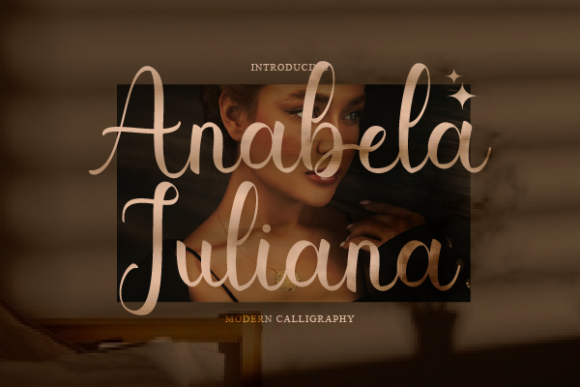
Introducing Anabela Juliana, the captivating and charming handwritten font that will ignite your imagination. Step into a world of endless creative possibilities with this exquisite script font, meticulously crafted to infuse your designs with elegance and allure.
Anabela Juliana is not just another font; it's an artistic masterpiece that breathes life into your creations. Its fluid strokes mimic the graceful flow of handwriting, adding a touch of authenticity and warmth to every project. The gentle curves and whimsical charm of this font evoke a sense of joy and romance, making it the perfect choice for capturing special moments and creating designs that resonate with your audience.
Whether you're a seasoned designer or just starting your creative journey, Anabela Juliana is the perfect companion for a wide range of projects. Its versatility shines in invitations, branding materials, social media graphics, and website designs. This font has the power to transform ordinary designs into extraordinary masterpieces, leaving a lasting impression on anyone who encounters them.
Imagine the impact Anabela Juliana can have on your website, captivating visitors with its captivating allure. The delicate curves and graceful strokes will draw attention to your headlines, making your message stand out from the crowd. Your audience will be mesmerized by the beauty of your designs, eager to explore the depths of your content.
But Anabela Juliana is more than just a visually stunning font; it's a powerful tool that will unleash your creativity. The endless possibilities it offers will inspire you to think outside the box and create designs that showcase your unique style. Let Anabela Juliana be the catalyst for your artistic expression, helping you turn your design dreams into breathtaking realities.
So, why settle for ordinary fonts when you can embrace the extraordinary? Anabela Juliana is the key to unlocking your creative potential, allowing you to create designs that captivate, inspire, and leave an unforgettable mark. Download this exquisite font today and embark on a journey of creative wonder.